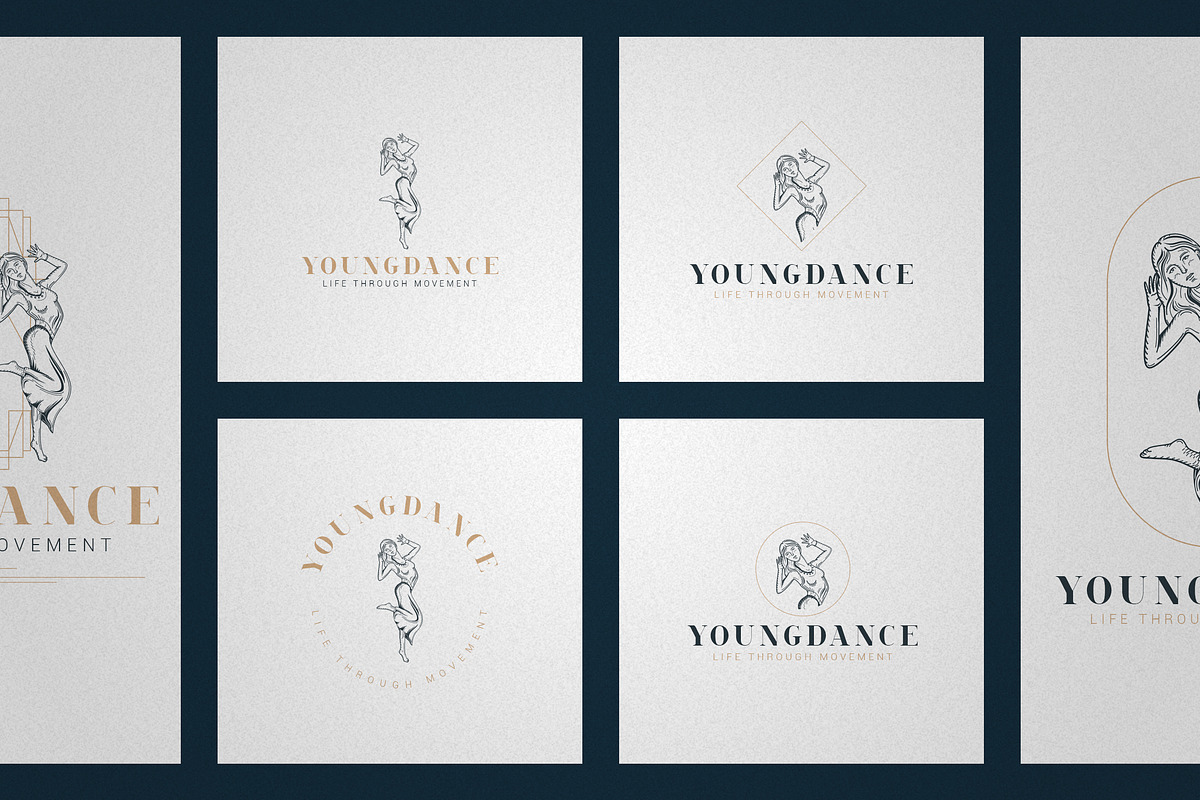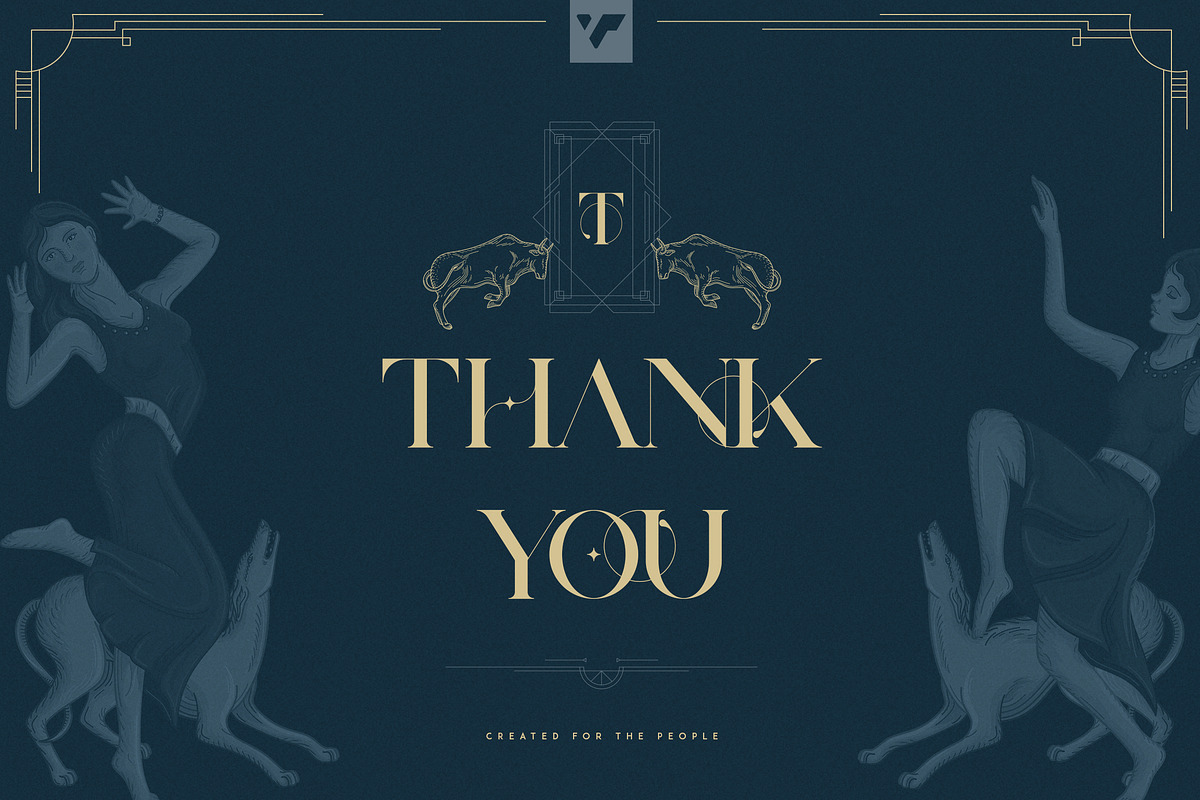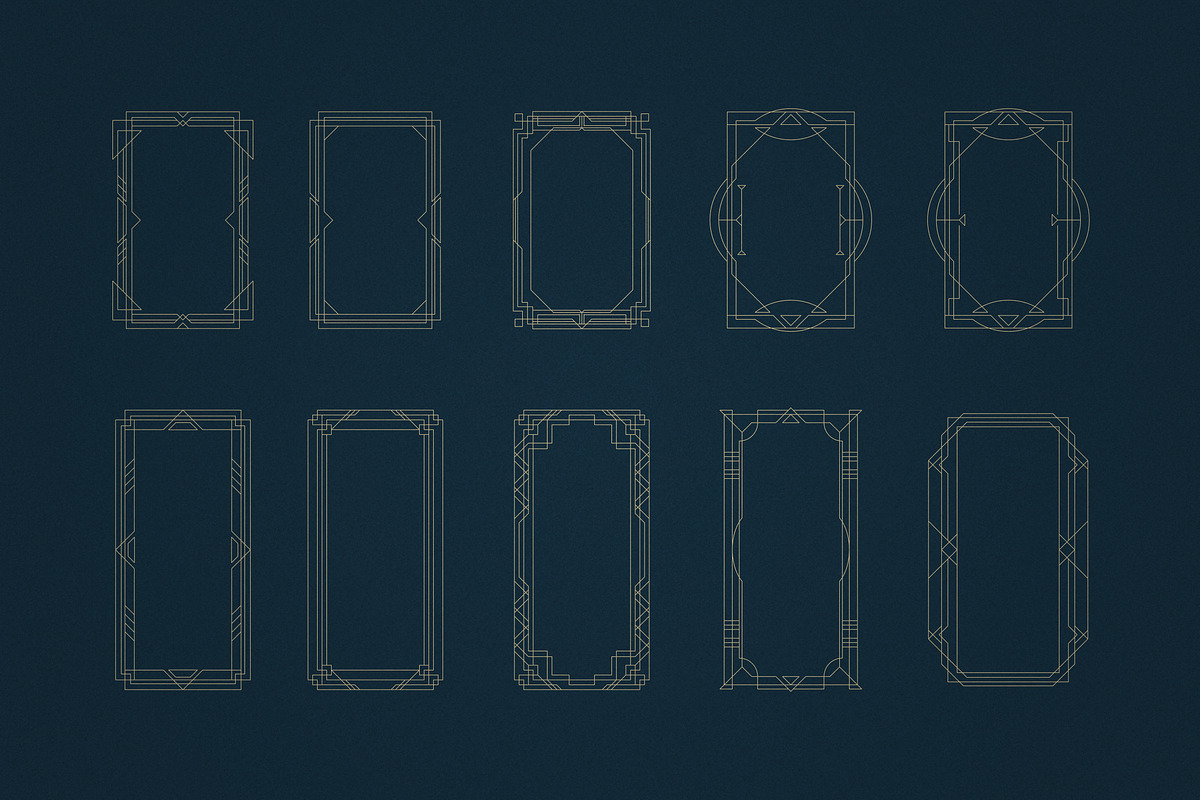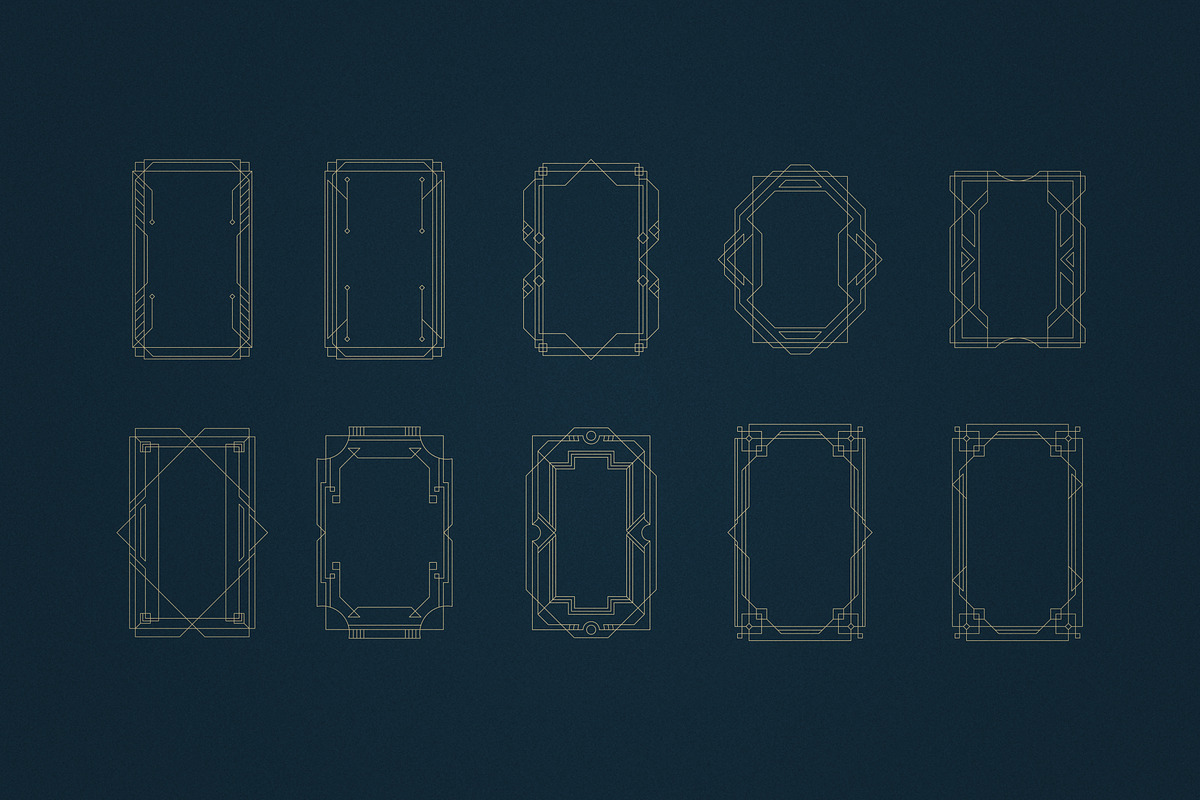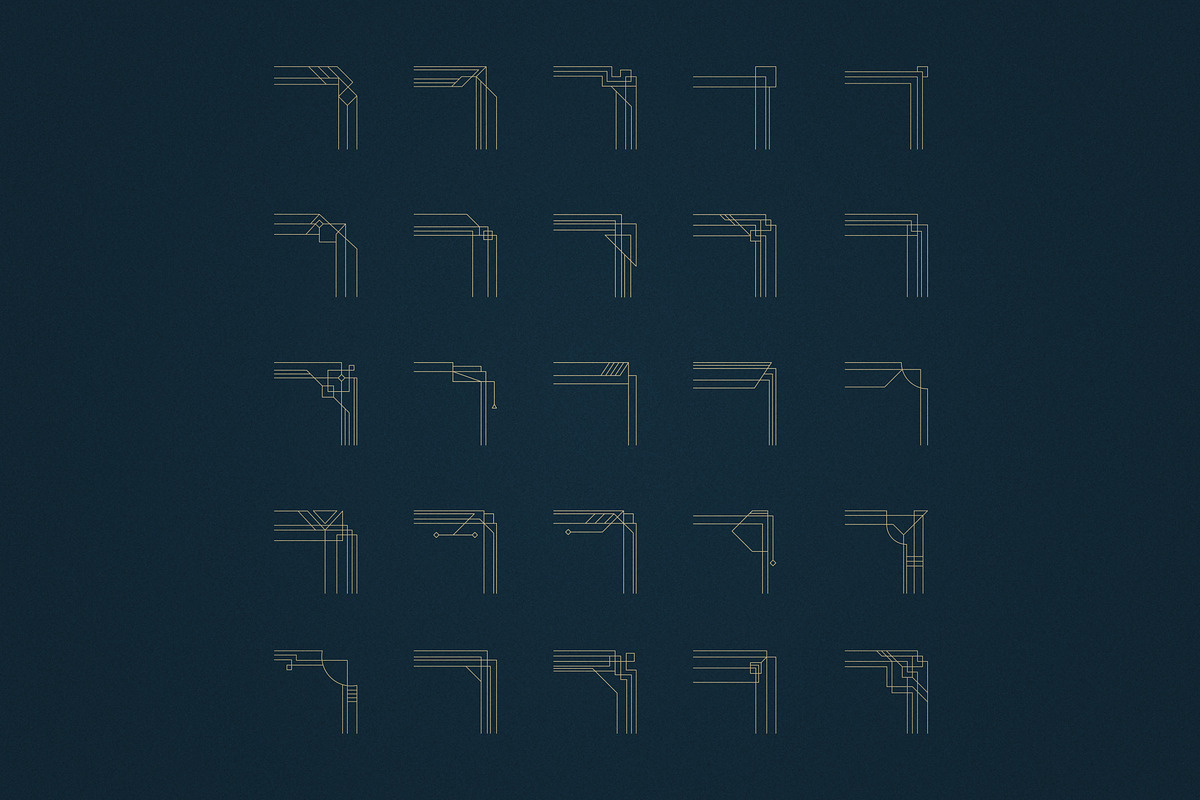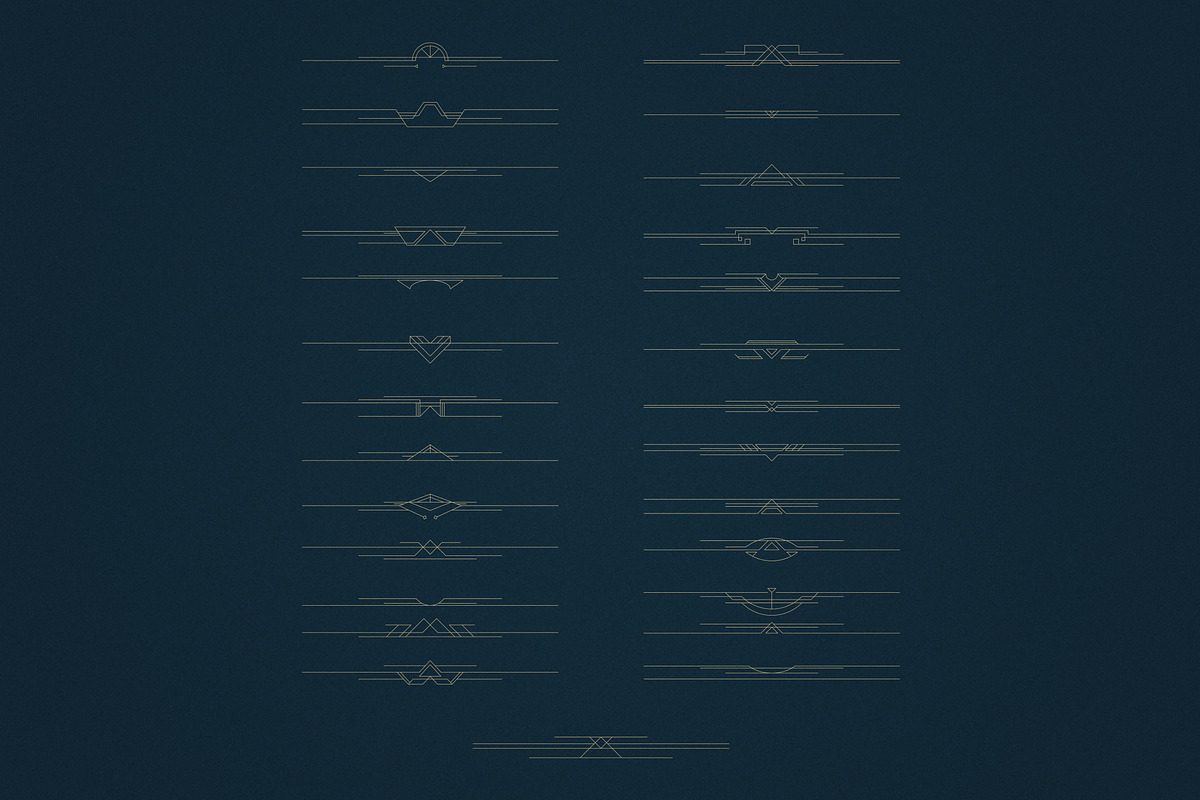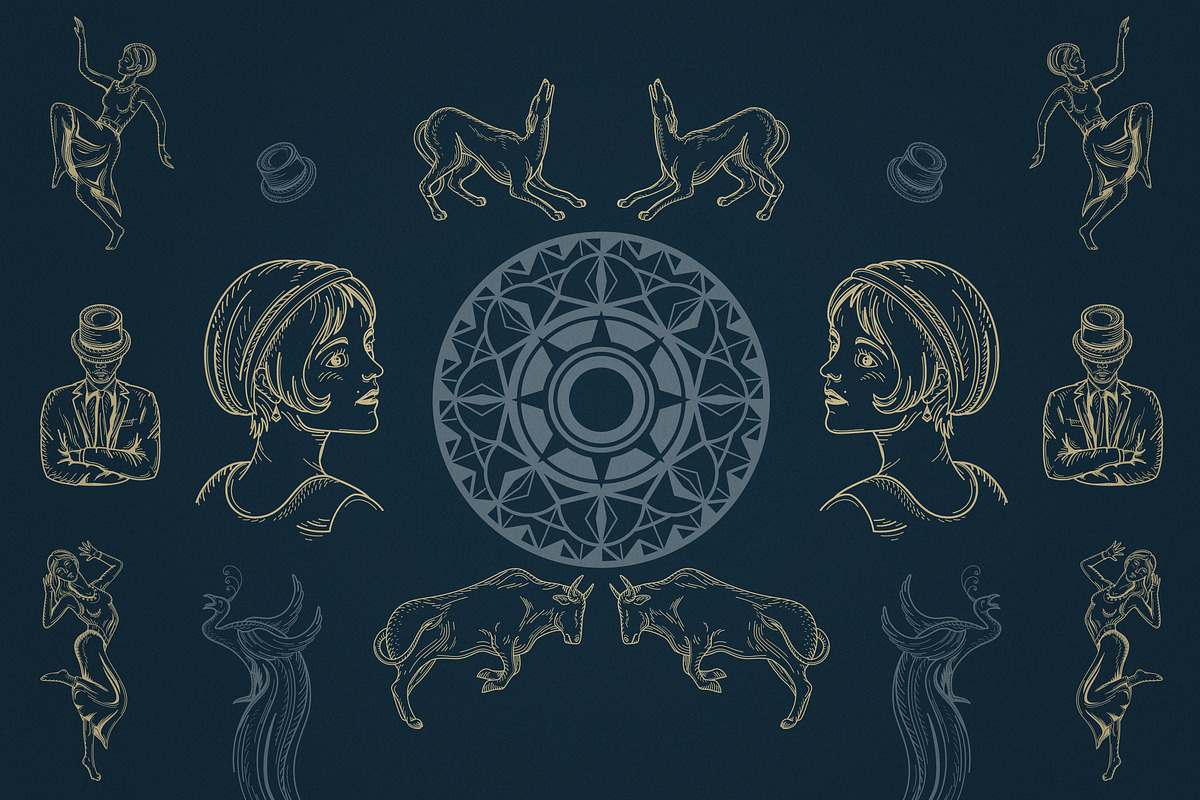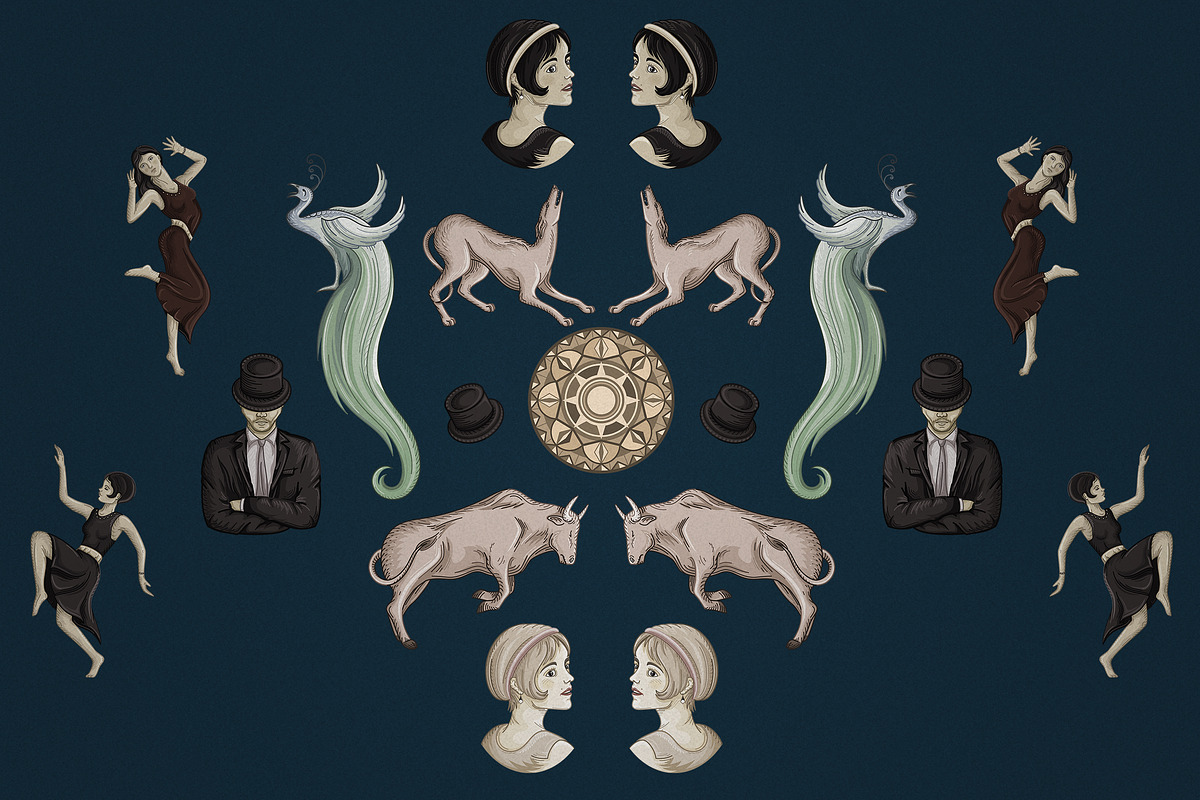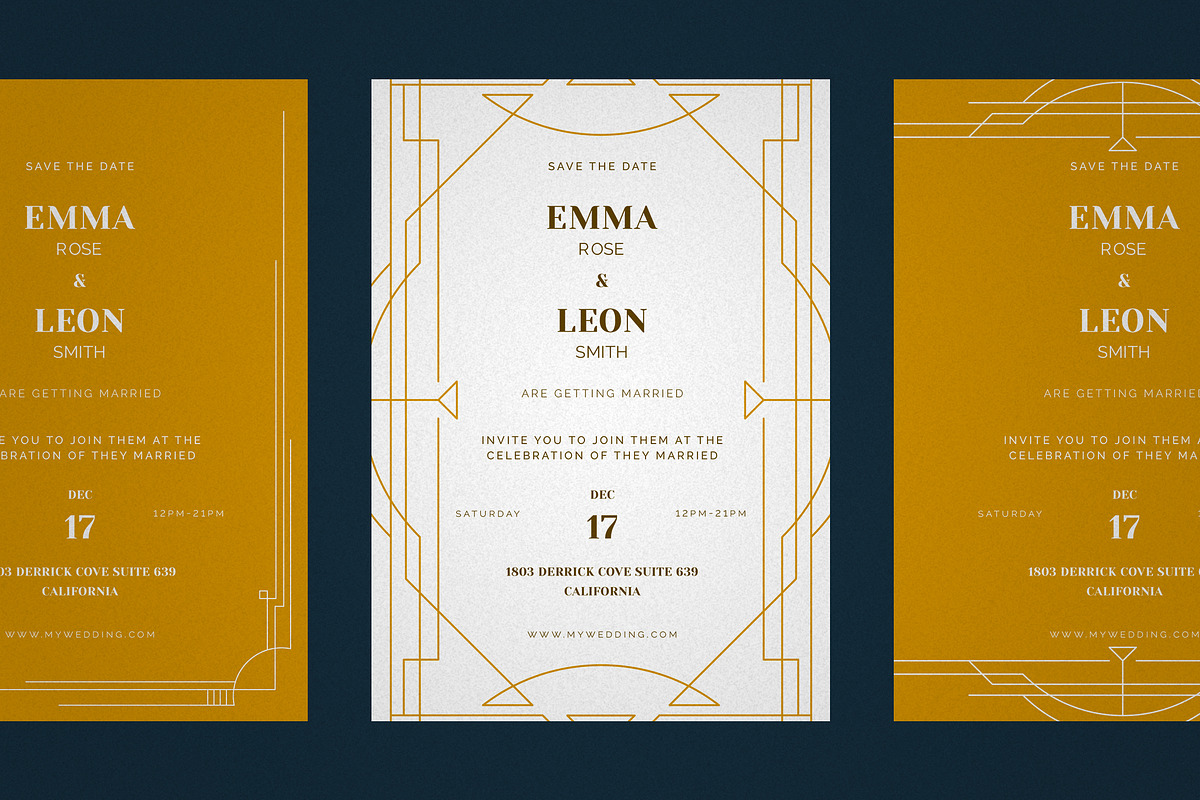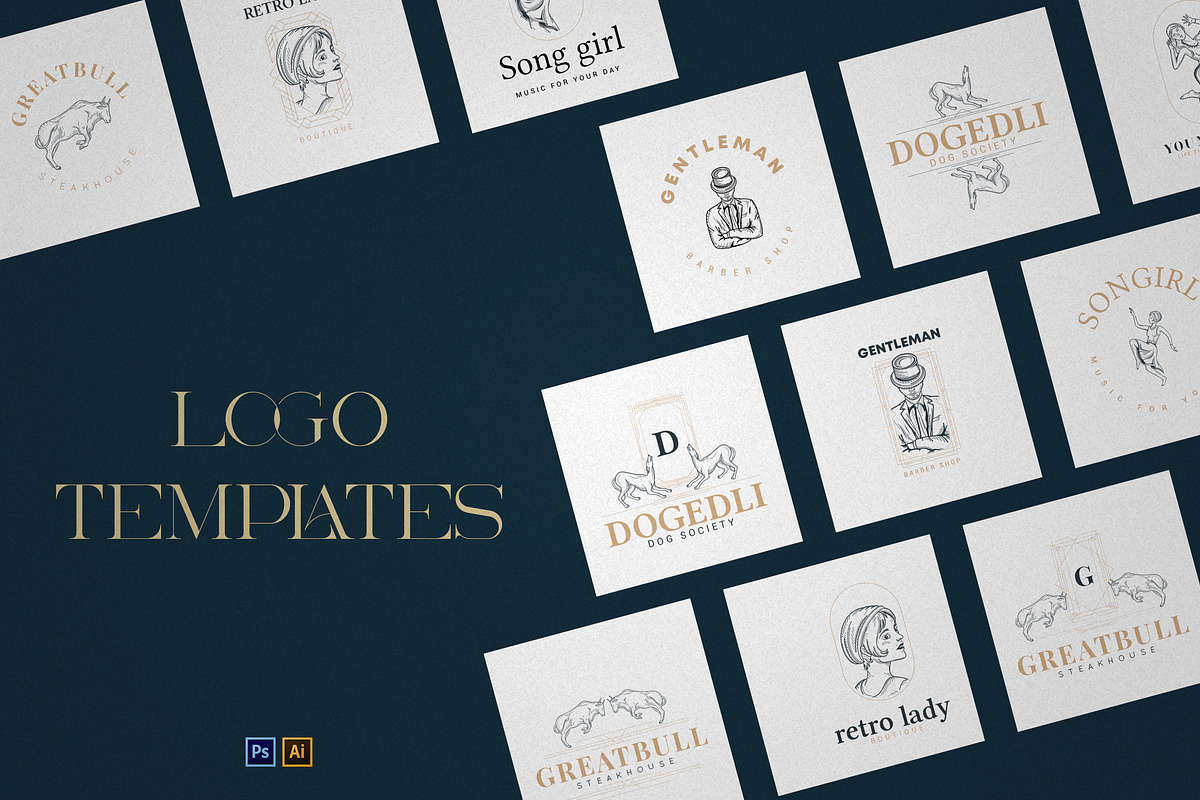
Art Deco Collection - Fonts, Vectors
Introducing Art Deco Collection - fonts, logo templates, illustrations, frames, corners, dividers, elements, font combinations.
In this collection you will find:
4 bestseller typefaces with 13 fonts in total
Metria Street - Art Deco Typeface - https://creativemarket.com/VPcreativeshop/5014485-Metria-Street-Art-Deco-Typeface
- Uppercase, numeral, punctuation & Symbol
- Light
- Bold
- Black
- Alternate glyphs
Akros - Serif Typeface - https://creativemarket.com/VPcreativeshop/4980235-Akros-Art-Deco-Serif-Extras
Uppercase, numeral, punctuation & Symbol
Light
Bold
Black
Monday Boulevard - Display Typeface - https://creativemarket.com/VPcreativeshop/5092194-Monday-Boulevard-Art-Deco-Typeface
- Uppercase, lowercase, numeral, punctuation & Symbol
- Light
- Bold
- Black
- Alternate glyphs
Billionaire Club - Serif Font - https://creativemarket.com/VPcreativeshop/5022413-Billionaire-Club-Art-Deco-Serif
Uppercase, numeral, punctuation & Symbol
Alternate glyphs
Art Deco Illustrations - https://creativemarket.com/VPcreativeshop/5060659-12-Art-Deco-illustrations
Custom crafted 12 illustrations. They look perfect on walls, t-shirts, clothes and they are perfect for your next logo design or branding project
32 Logo Templates - https://creativemarket.com/VPcreativeshop/5068667-32-Art-Deco-Logo-Templates
Frames, Corners and Deviders - Photoshop and Illustrator - https://creativemarket.com/VPcreativeshop/5047150-Art-Deco-Frames-Corners-Deviders
Custom crafted 35 frames, 25 corners, 27 dividers. Perfect for flyers, headers, invitations, text, logo templates, badges, emblems and more :)